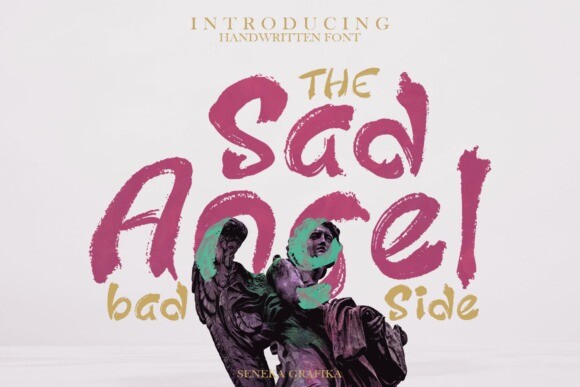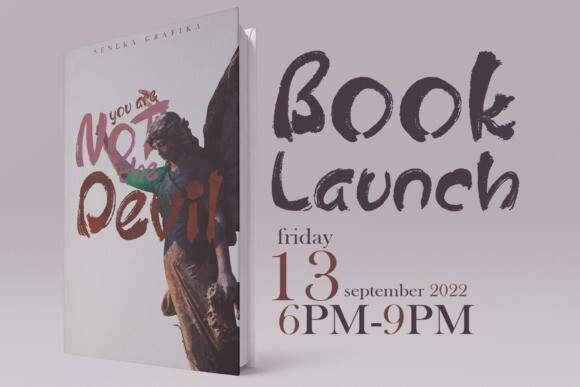
Sad Angel Font
Sad Angel has hard strokes and a signature style that creates an instant unique sensation. Take your creative projects to the highest level with this font.
Sad Angel will help you to create special and touching typographical designs for your headings, flyer, product packaging, book cover, printed quotes, logos, and many more.